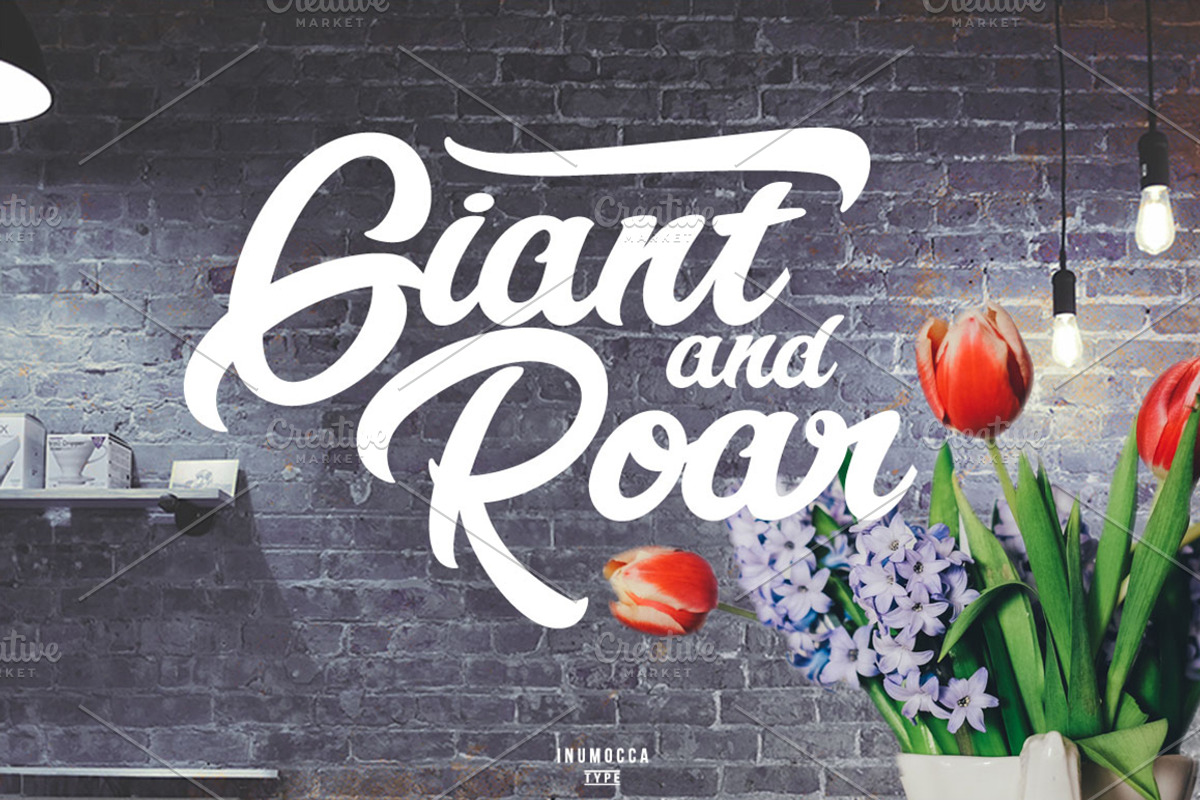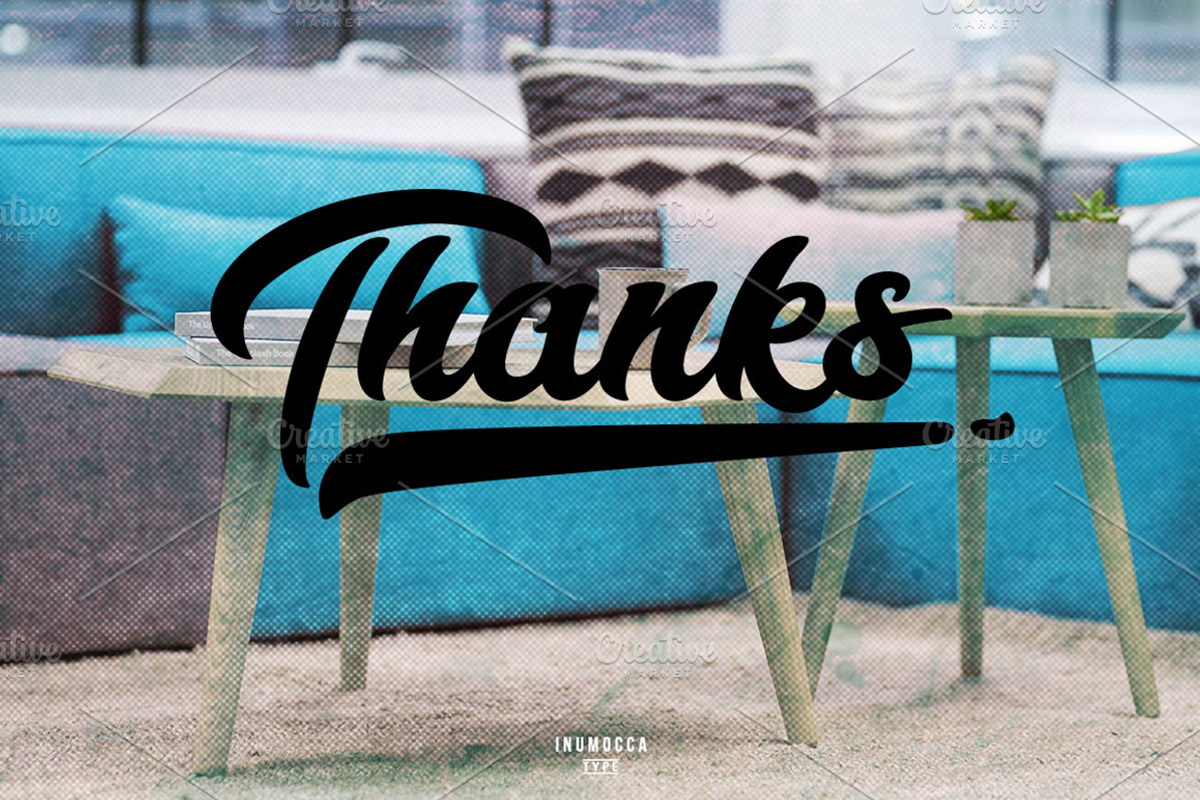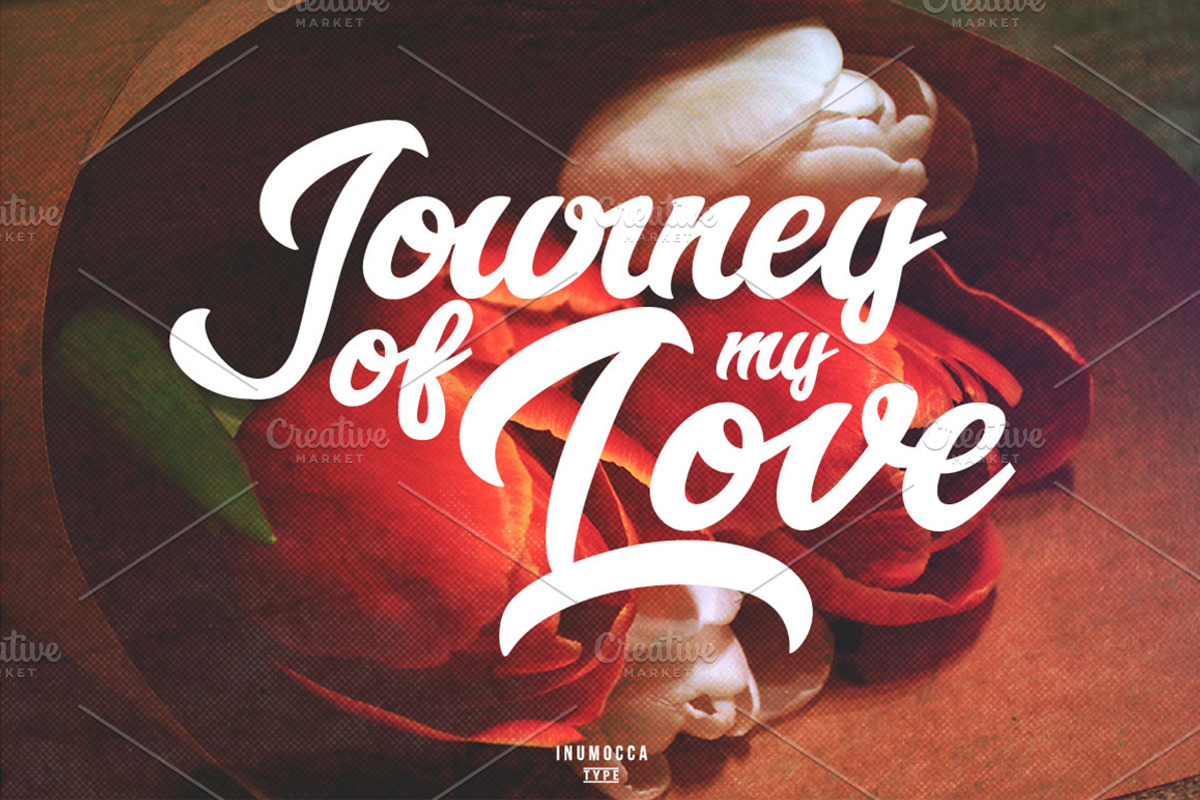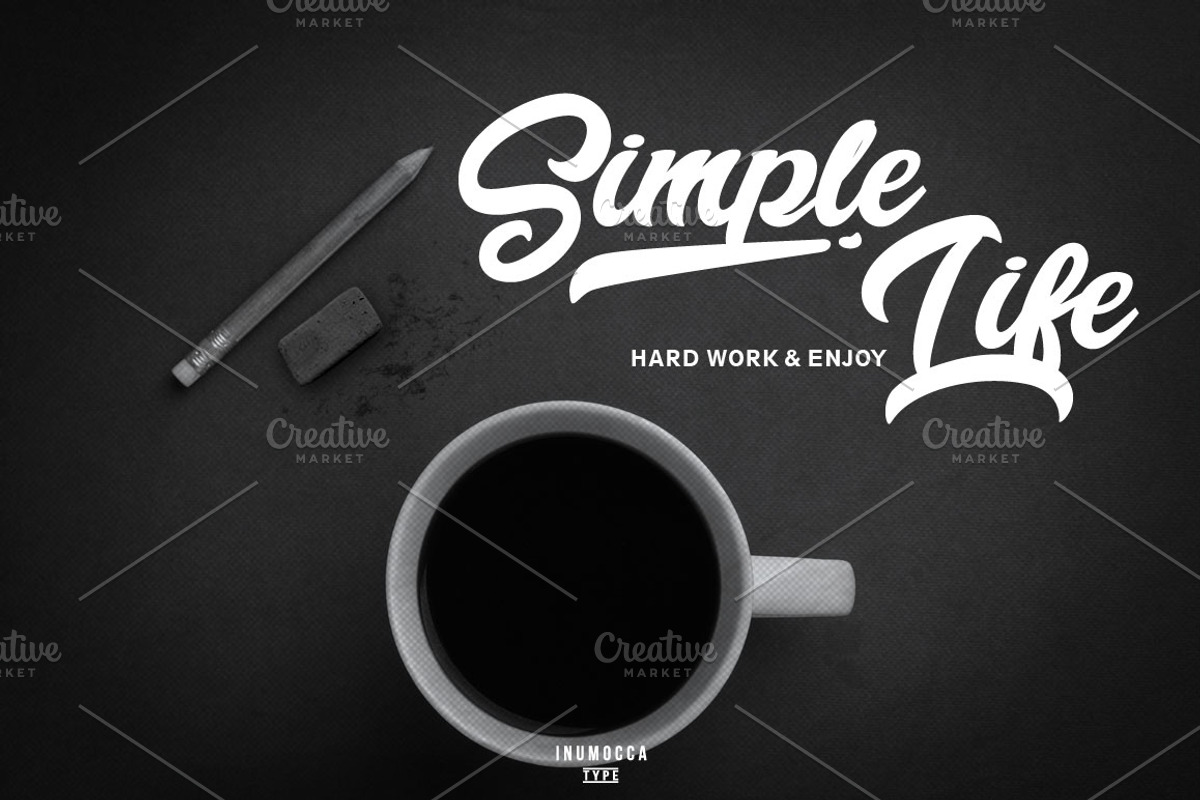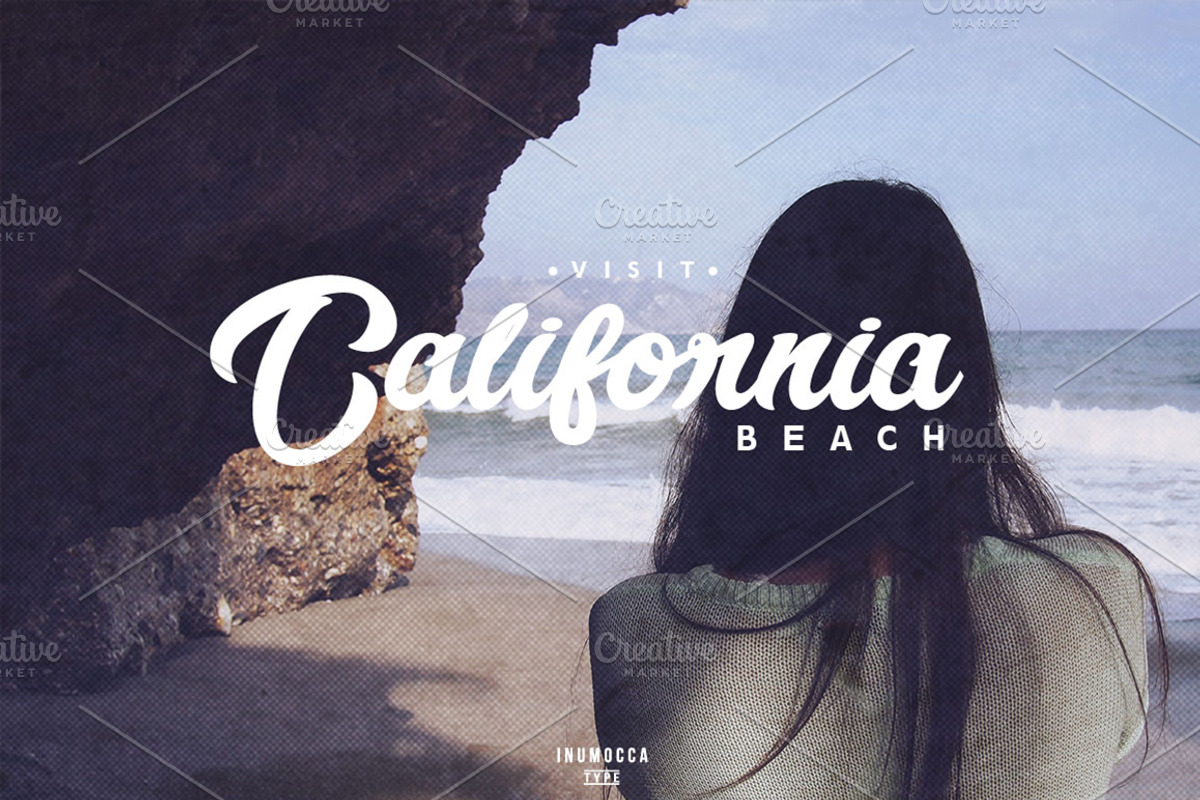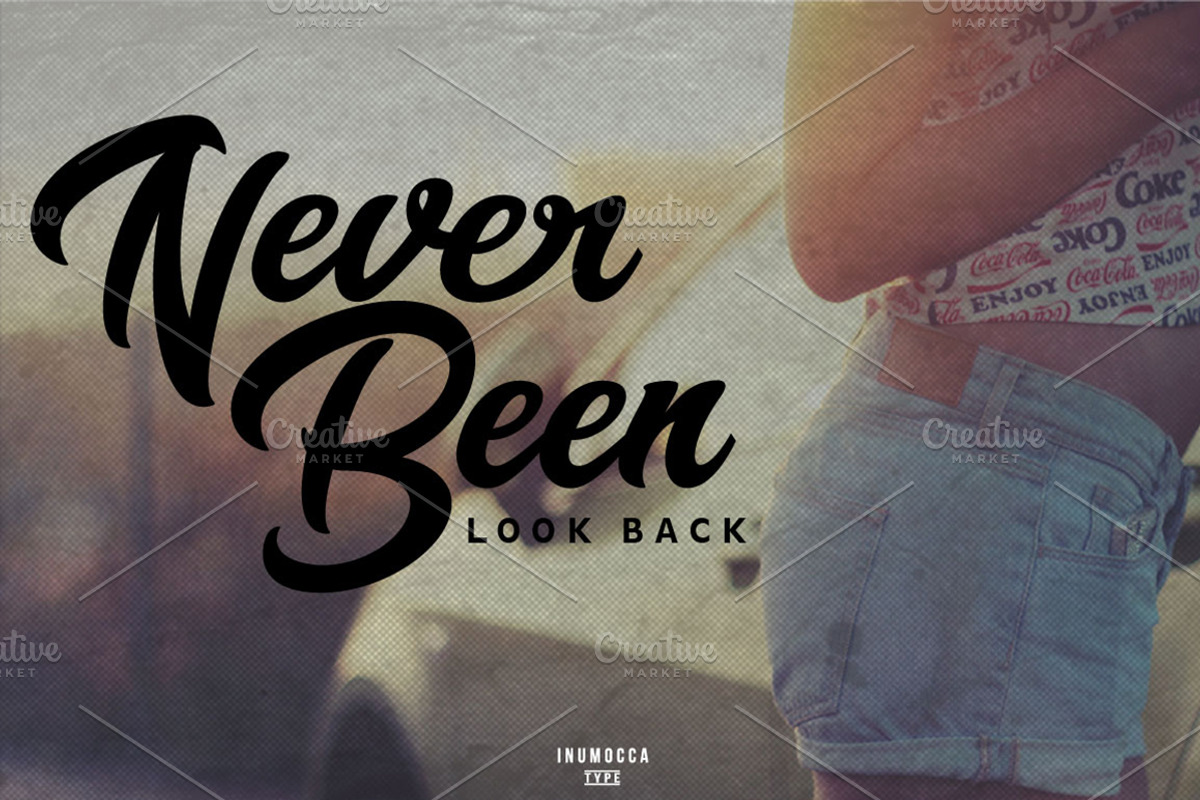
Bouquet Typeface
Bouquet Typeface by inumoccatype is a font selected for branding, posters, packaging, typography.
- -Bouquet Typeface support with Opentype Unique glyphs with cool Swash Ligatures Multilingual characters This font also featured with PUA enc
Why Bouquet Typeface is worth a look
Bouquet Typeface by inumoccatype fits naturally into Branding, posters, packaging, typography.